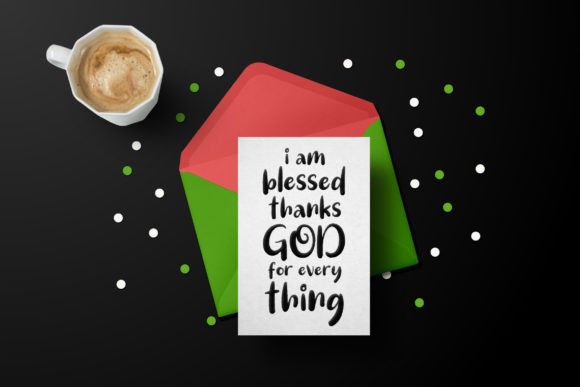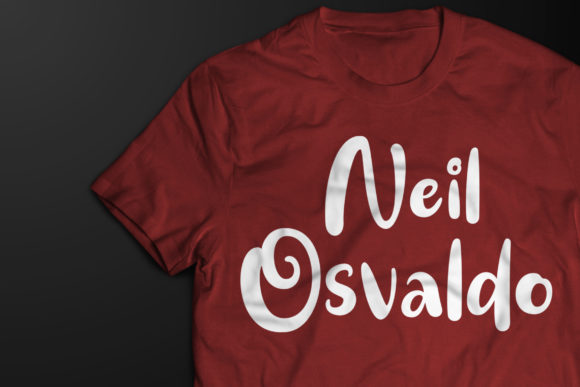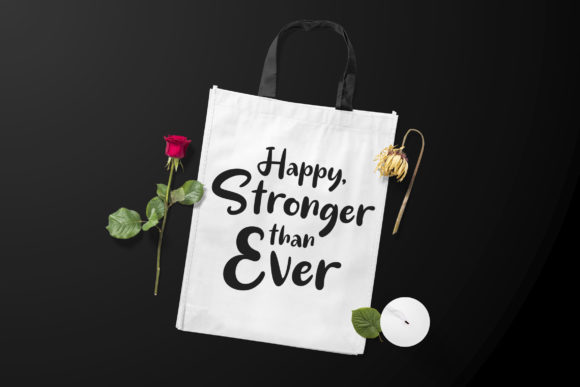
Introduction to Mike Samiya Font
You know that moment when you’re working on a creative project and the right font can make all the difference? The one that elevates your design from good to great? For designers, finding the perfect font can be a challenge, but what if we told you that we’ve found one that’s sure to turn heads?
| 📌 Product Name | Mike Samiya Font |
| 👤 Author | Grezline Studio |
Meet the Mike Samiya Font, a cool and powerful script font that’s got designers talking. With its incredibly authentic lettering, this font is a game-changer for any design project. Whether you’re working on a logo, a social media graphic, or a marketing campaign, the Mike Samiya Font is a valuable resource that’s sure to make your design stand out.
Key Features of Mike Samiya Font
- High-quality design resource suitable for creative projects
- Supports transparent background for versatile design applications
- Includes a wide range of glyphs and characters for diverse design needs
- Designed with high-resolution clarity, suitable for print and digital use
Honest Review: Mike Samiya Font
I recently stumbled upon the Mike Samiya Font while searching for a unique design resource to elevate my creative project. The font caught my eye due to its modern and elegant feel, making it perfect for a variety of applications.
- High-quality design: The Mike Samiya Font boasts a professional finish that’s sure to impress.
- Transparent background: This feature is particularly useful when working with transparent backgrounds or images.
- ⚠️ Limited character set: The font only includes a limited character set, which may not be suitable for longer texts or complex content.
- ⚠️ Not ideal for body text: While the font is great for headings and titles, it may not be the best choice for body text due to its limited legibility at smaller font sizes.
Overall, I’m impressed with the Mike Samiya Font, and I think it’s a valuable addition to any designer’s toolkit. While it may have some limitations, its unique style and high-quality design make it a great choice for creative projects that require a touch of sophistication.
Getting the Most Out of Mike Samiya Font
For optimal results, use the Mike Samiya Font in combination with other high-quality design resources. Experiment with different font sizes, colors, and styles to create a unique and eye-catching design.
Common Use Cases for Mike Samiya Font
The Mike Samiya Font is perfect for a variety of creative projects, including logos, brochures, and business cards. Its elegant design and transparent background make it ideal for designs that require a touch of sophistication and style.
Alternatives to Mike Samiya Font
Great Vibes is a modern, elegant script font suitable for creative projects that require a sophisticated touch. It’s ideal for use in logo designs, branding materials, and marketing campaigns. Great Vibes is available for free download and offers a transparent background, making it easy to overlay on any design.
Compared to Mike Samiya Font, Great Vibes has a more refined and polished look, making it perfect for high-end design projects. While Mike Samiya Font has a unique, handwritten feel, Great Vibes is more suitable for formal and professional applications.
Alex Brush is a beautiful, cursive font designed for use in creative projects that require a touch of elegance. It’s perfect for wedding invitations, birthday cards, and other design elements that need a personal and emotional touch. Alex Brush is available for free download and can be used with a transparent background.
Compared to Mike Samiya Font, Alex Brush has a more fluid and organic feel, making it suitable for projects that require a sense of movement and energy. While Mike Samiya Font is more versatile and can be used in a variety of contexts, Alex Brush is better suited for design elements that require a sense of romance and sophistication.